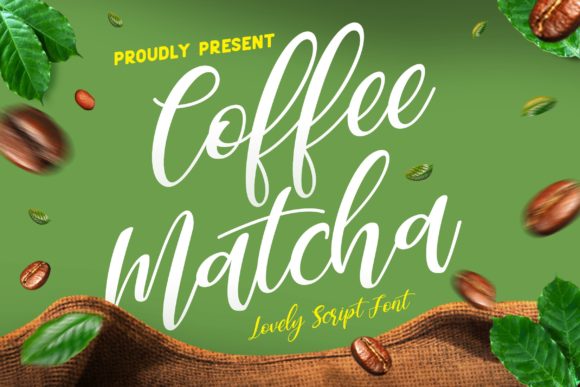
Immerse yourself in the world of elegance and sophistication with Coffee Matcha Font, a captivating script font born from the perfect blend of sweetness and cursive charm. Crafted by the talented awansenja.type, this font is more than just a collection of characters; it's an artistic masterpiece designed to elevate your projects to new heights of beauty and allure.
Coffee Matcha Font isn't just another font; it's an experience. Its delicate curves and flowing lines will effortlessly add a touch of joy and romance to your designs, leaving an unforgettable impression on anyone who encounters it. Picture your words adorned with this exquisite font, exuding an aura of grace and charm that commands attention and sparks emotions.
Whether you're a seasoned designer or just starting your creative journey, Coffee Matcha Font is the perfect companion for a wide range of projects. Its versatility knows no bounds, making it an ideal choice for logos, branding, invitations, social media graphics, product packaging, and so much more. Its inherent elegance will effortlessly elevate your designs, adding a touch of sophistication and charm that will make them stand out from the crowd.
Step into the realm of beauty and creativity with Coffee Matcha Font. Let your imagination soar as you explore the endless possibilities it offers. From delicate wedding invitations that evoke a sense of timeless romance to chic branding materials that exude professionalism and elegance, this font will transform your designs into captivating works of art.